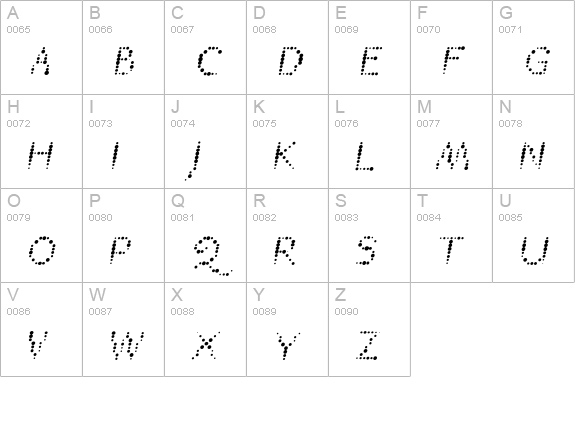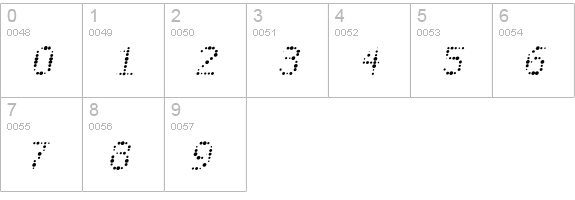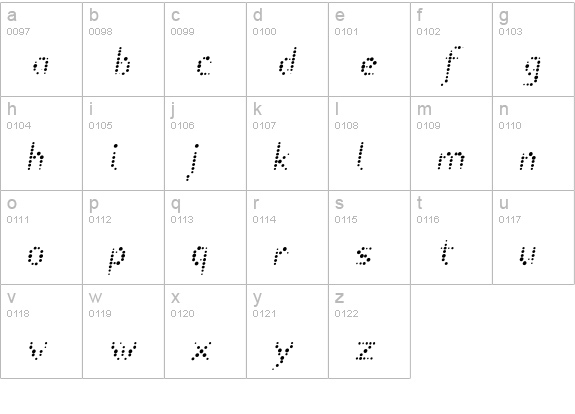
TTRheostatCelsius-BookItalic is a stunning font that exudes elegance and sophistication. Its delicate curves and slanted design add a touch of modernity to any project. This font is perfect for those seeking a unique and stylish way to showcase their text. With TTRheostatCelsius-BookItalic, your words will effortlessly captivate the reader's attention. Whether it's for a logo, branding materials, or even a book cover, this font will make your design stand out from the crowd. One of the best things about TTRheostatCelsius-BookItalic is that it is freely available to download at FontsMarket.com. You can easily access this font and start using it in your projects without any hassle. This means that you can add a touch of sophistication to your designs without breaking the bank. Don't miss out on the opportunity to enhance your design with the beauty of TTRheostatCelsius-BookItalic. Download it now for free at FontsMarket.com and let your creativity soar to new heights.